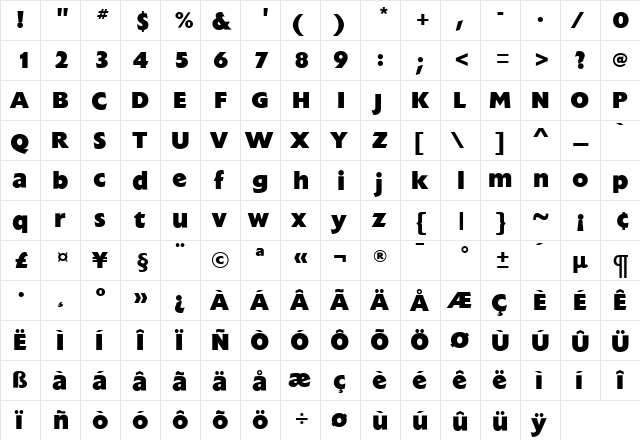
ExtensionExtraBold Roman
Design Context for ExtensionExtraBold Typeface
ExtensionExtraBold offers clean, dependable letterforms without strong stylistic allegiance, making it a practical choice for designers who need flexibility. The heavy weight commands attention and anchors typographic hierarchies.